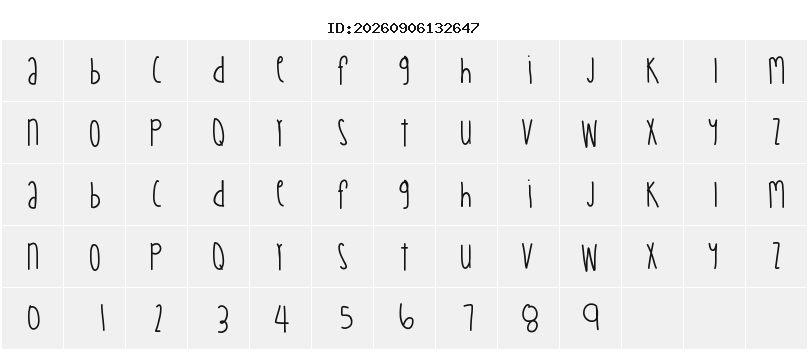
TangerineMangos Preview
• Font Name: TangerineMangos
• Full Font Name: TangerineMangos
About TangerineMangos.ttf
TangerineMangos.ttf is a modern, elegant sans-serif font designed for ultimate readability and visual harmony. Perfect for branding, headlines, web design, and print materials.